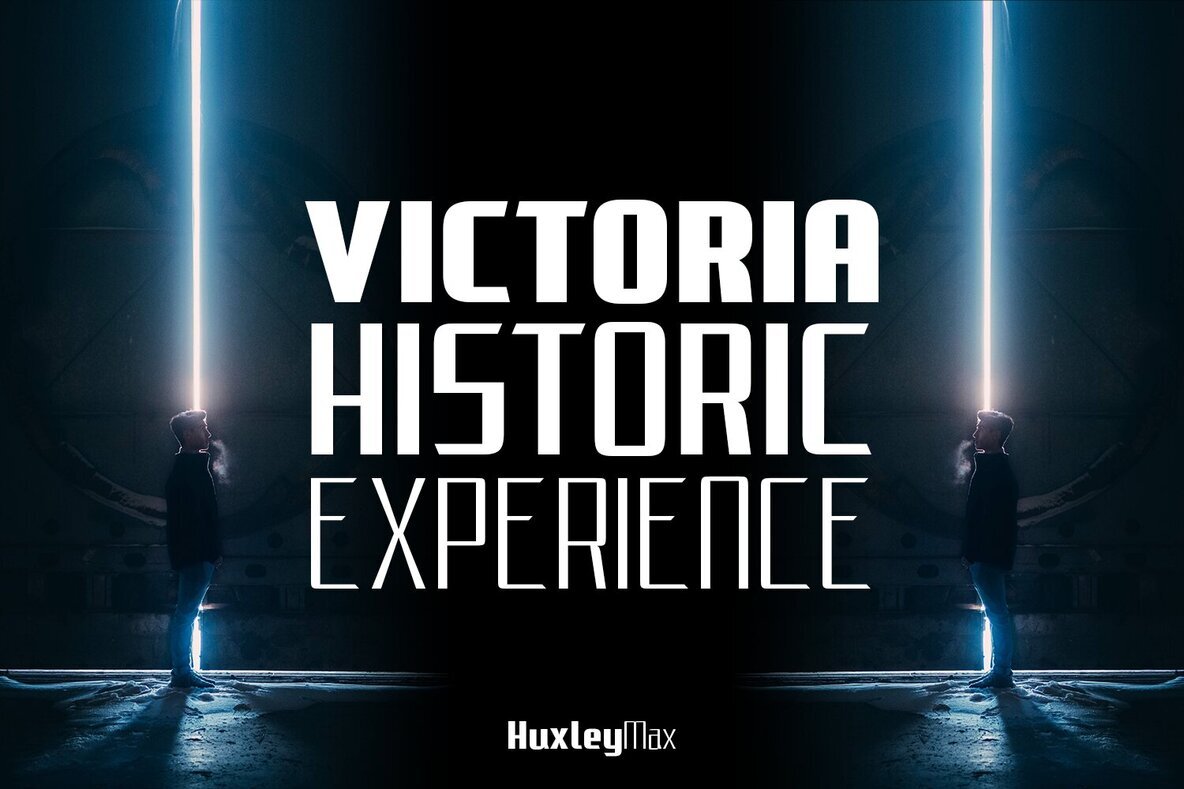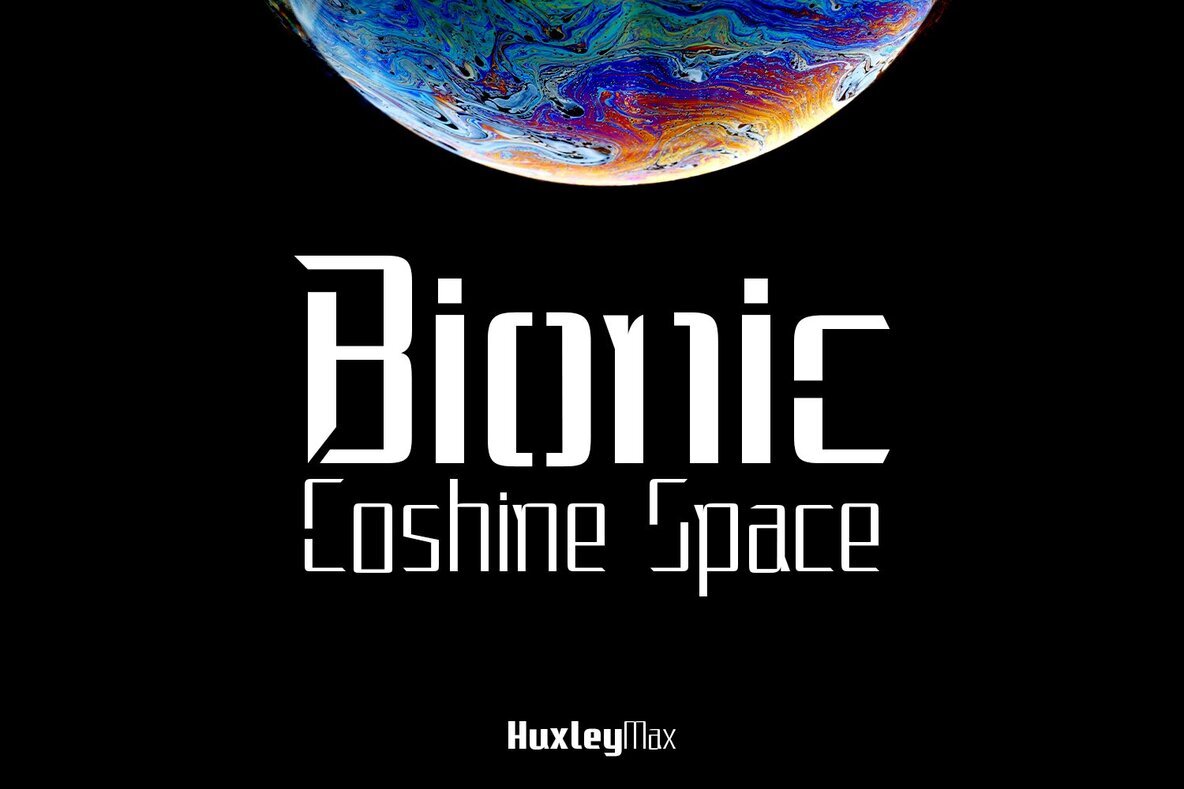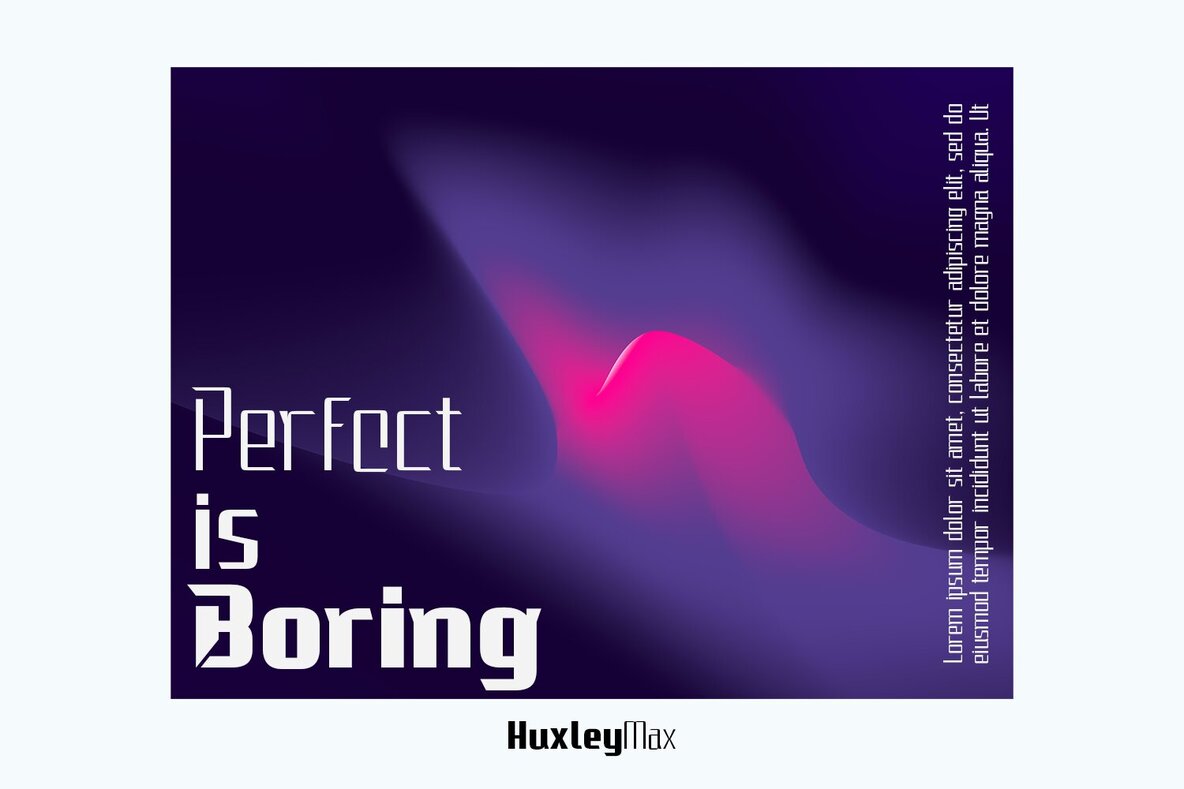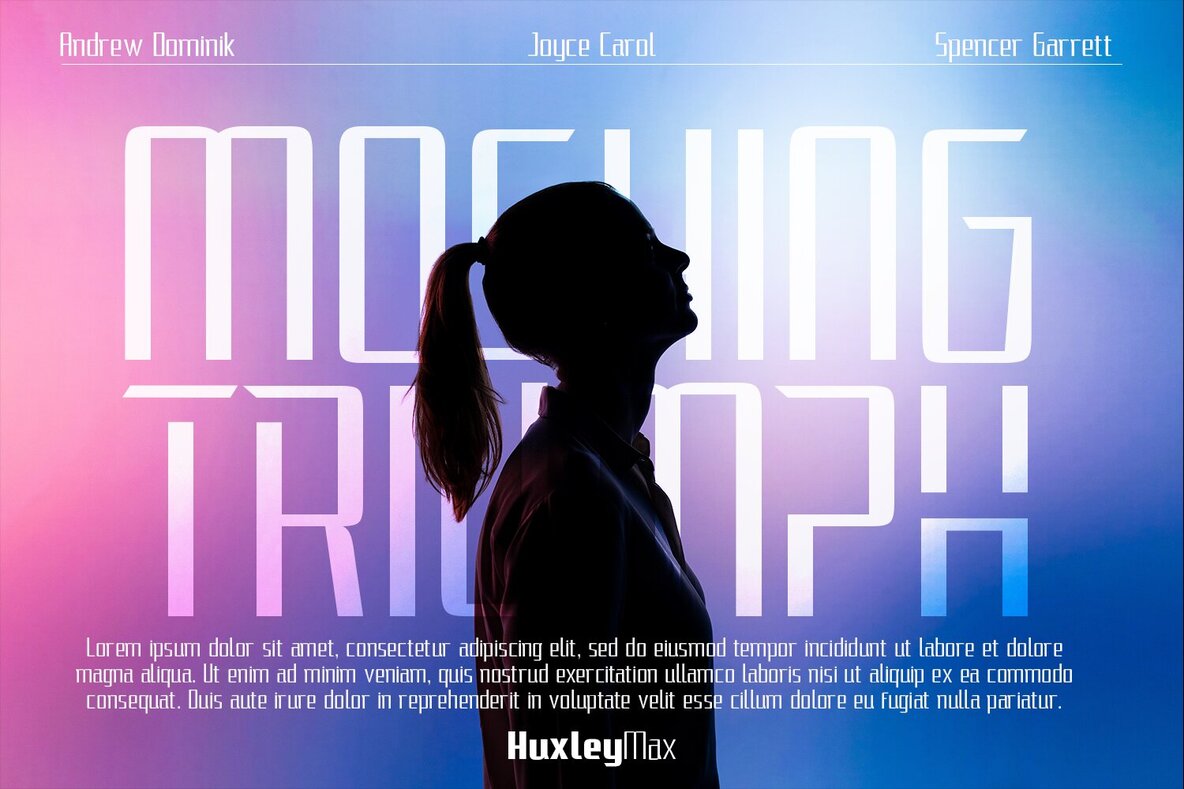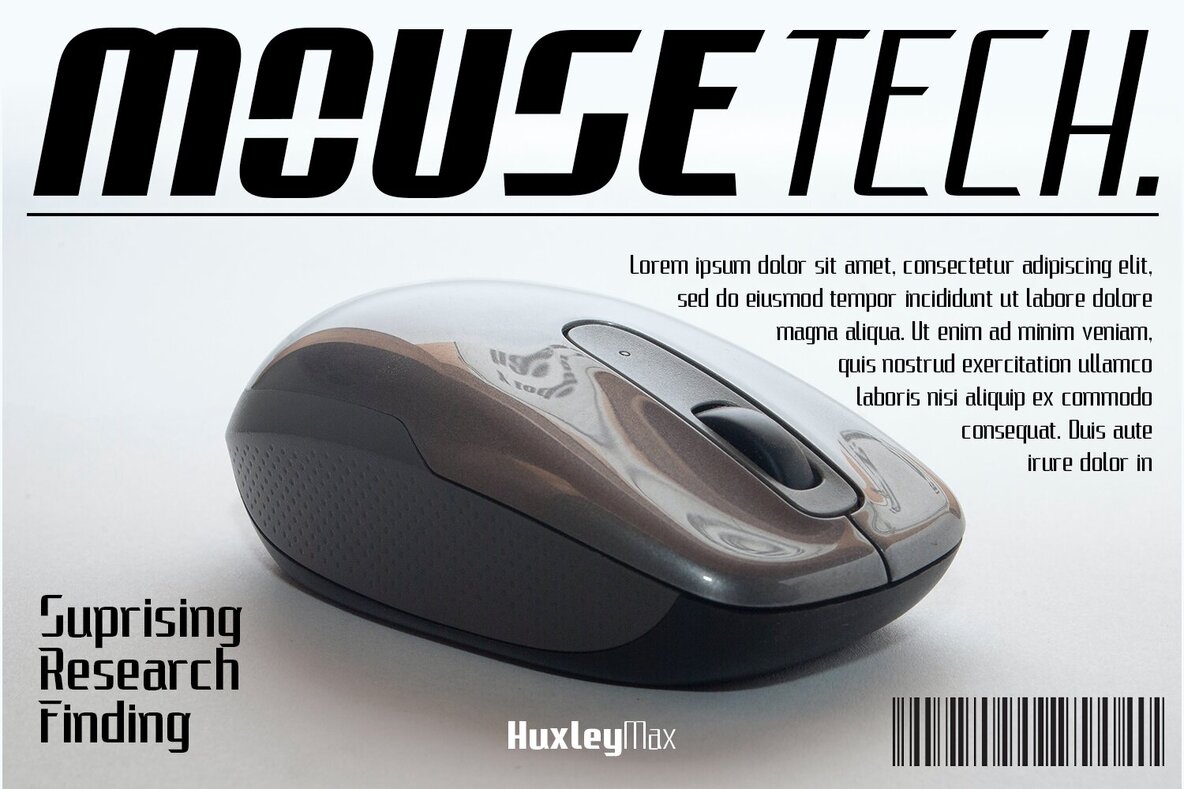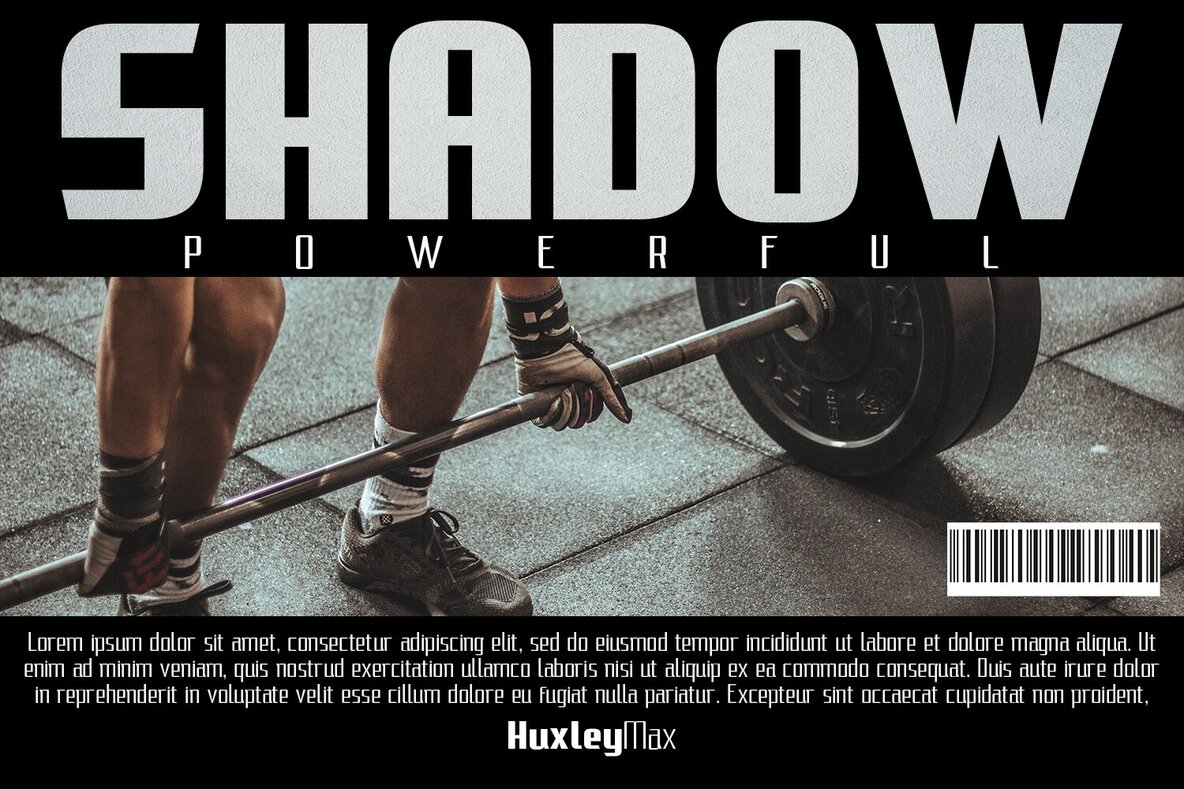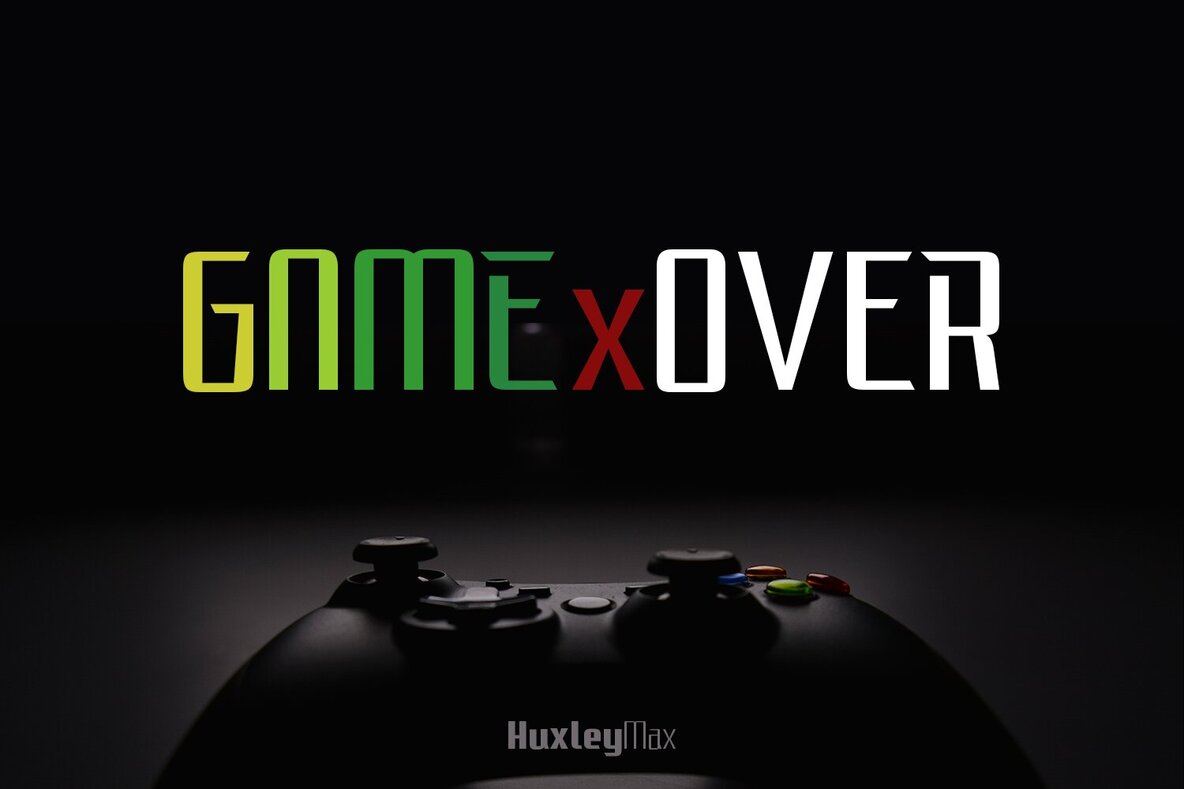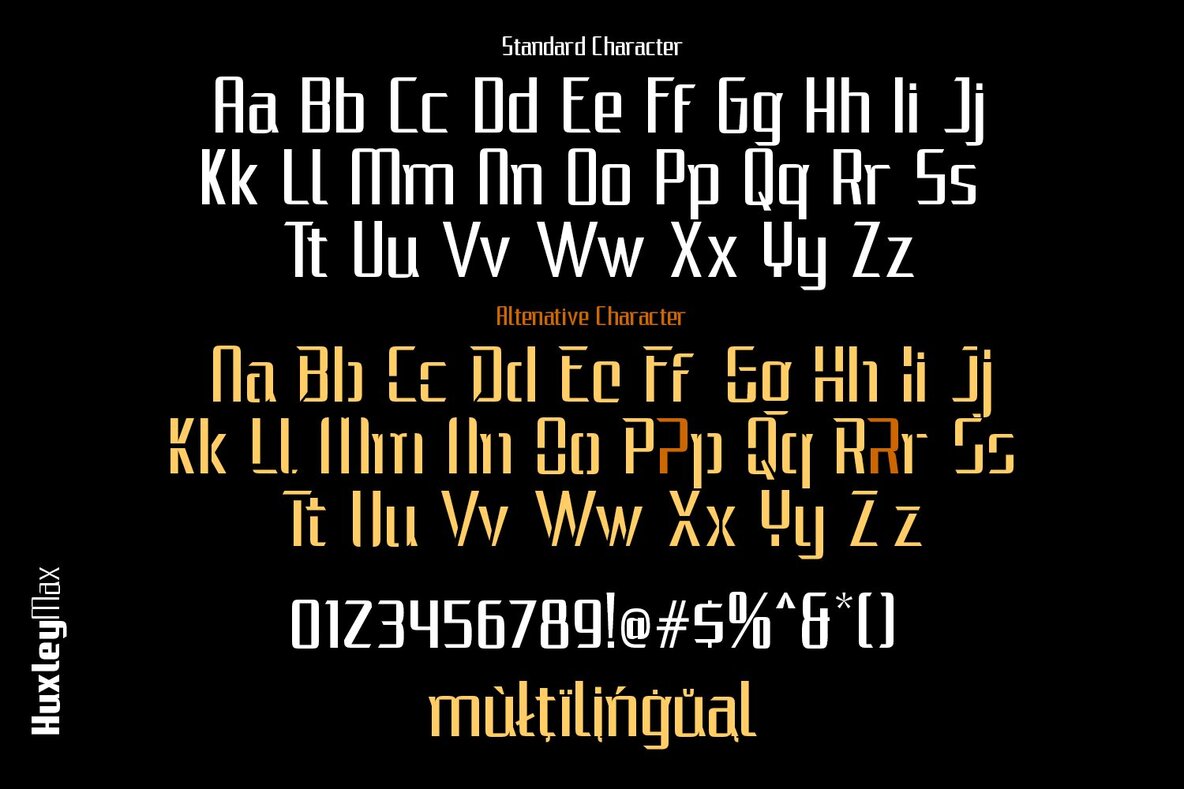
HuxleyMax Font
HuxleyMax by Type Class Heroes is a modern sans serif display font that offers a clean and straightforward design, ideal for a variety of creative projects. With its diverse widths and weights, this font invites designers to experiment with rhythm and texture, ensuring a reading experience that is both engaging and comfortable. The variable version of HuxleyMax provides a wealth of design possibilities, adapting seamlessly to any composition's needs. This makes it an excellent choice for a wide array of applications, from branding to product packaging. Features:HuxleyMax: A Modern Sans Serif Display Font